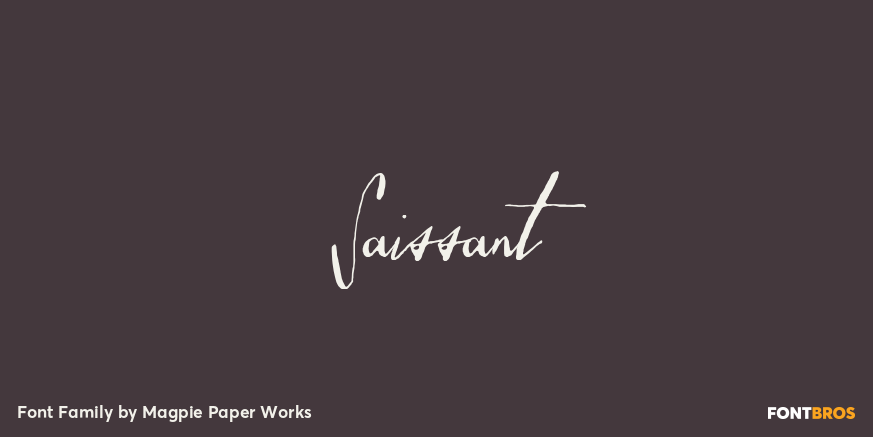
Saissant
Edgy and modern, Saissant is a hand-drawn font that leaves an impression. Bold capitals and kinetic lowercase letters have been designed for emotional impact. Saissant includes multi-language support as well as contextual alternates and discretionary…